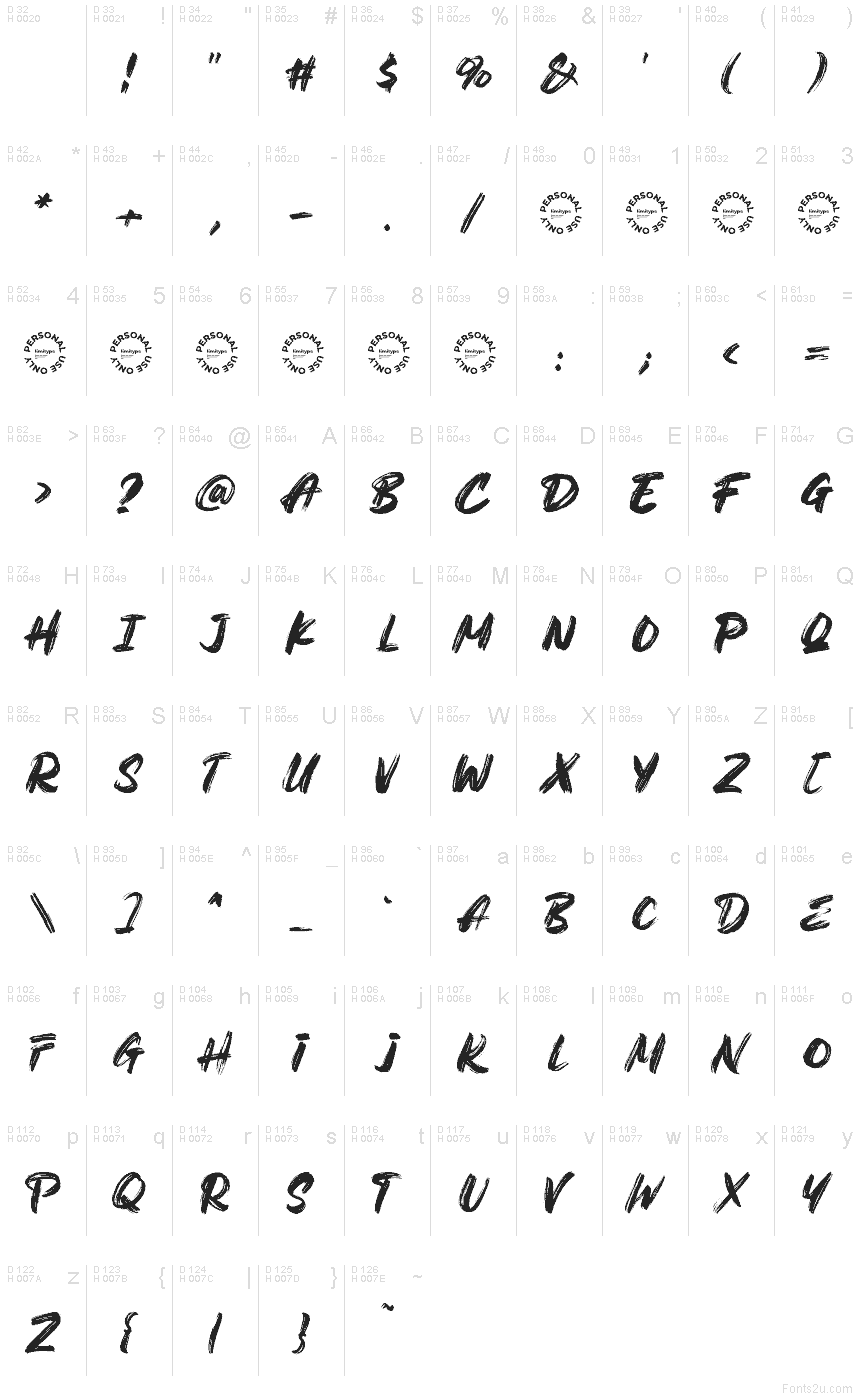
Kirens Brush DEMO Regular
Kirens Brush font by Limitype is a free brush typeface. It hits the page with slashed, inky strokes and ragged edges that feel freshly painted—like a dry brush dragged fast across gritty paper. The rhythm is bold and forward-leaning, with dense streaks and little bursts of texture that add real-world bite without losing legibility.
Using Kirens Brush, you get instant adrenaline for posters, streetwear branding, album covers, sports graphics, event flyers, and bold packaging. This free font shines at larger sizes where the bristle textures can breathe; give it a touch of letterspacing for air. For contrast, pair headlines set in Kirens Brush with a clean, no-nonsense sans for supporting copy.